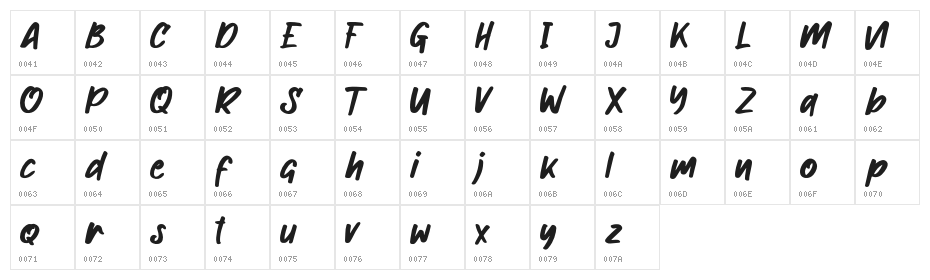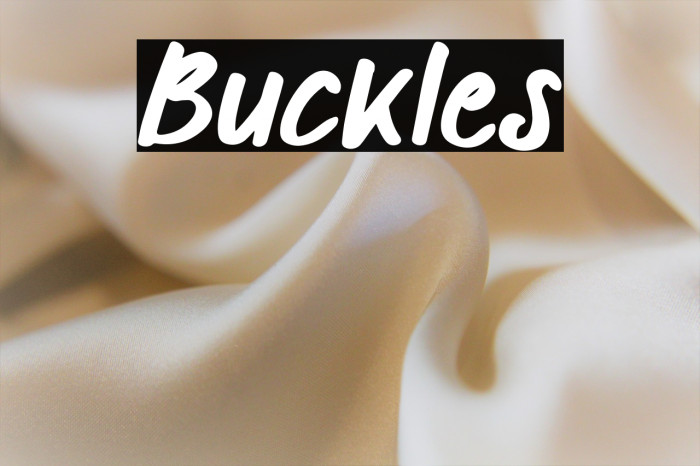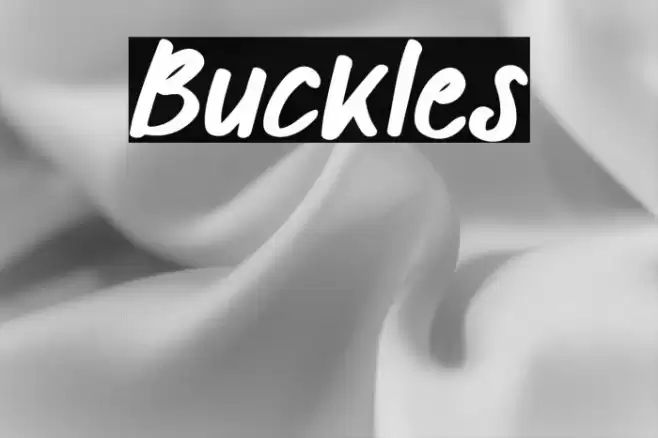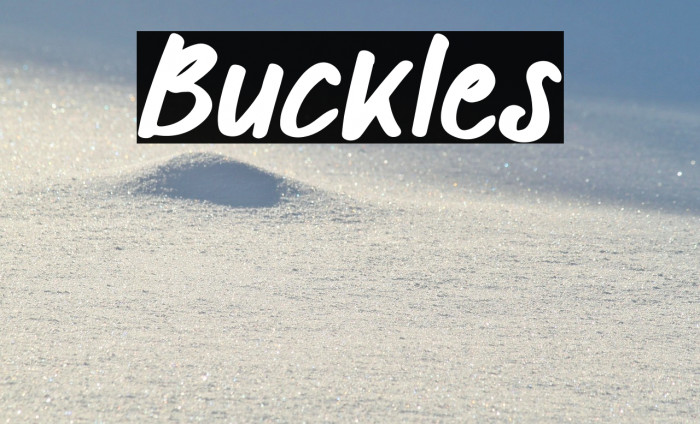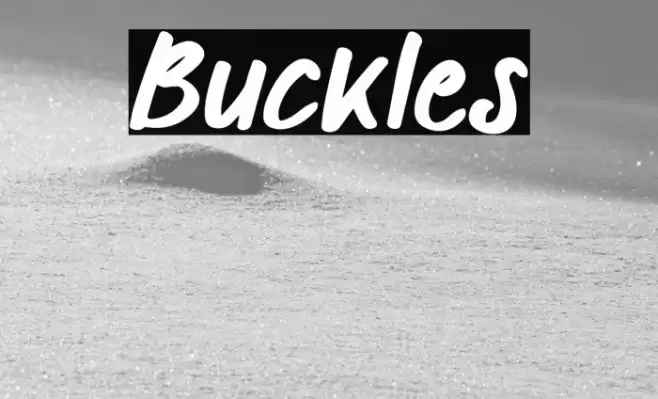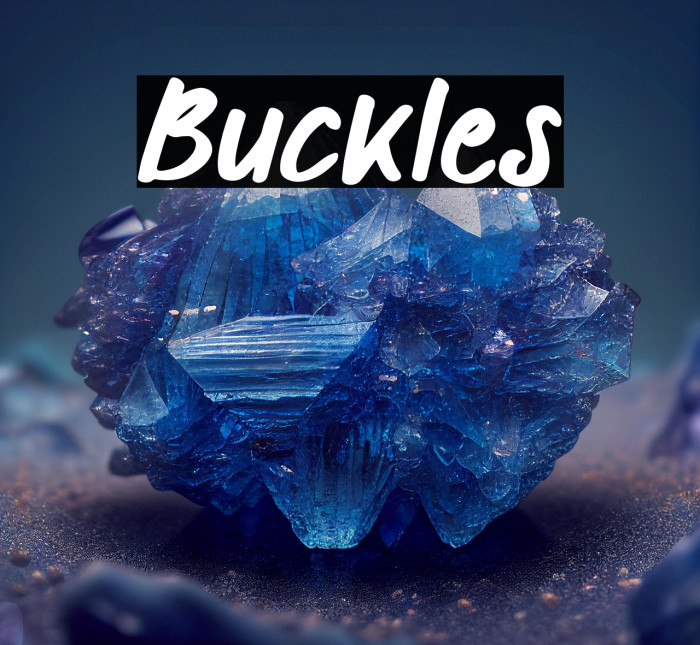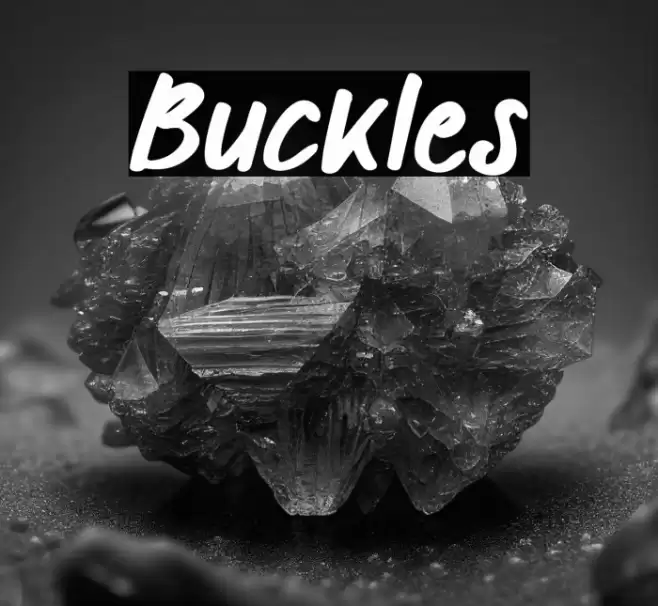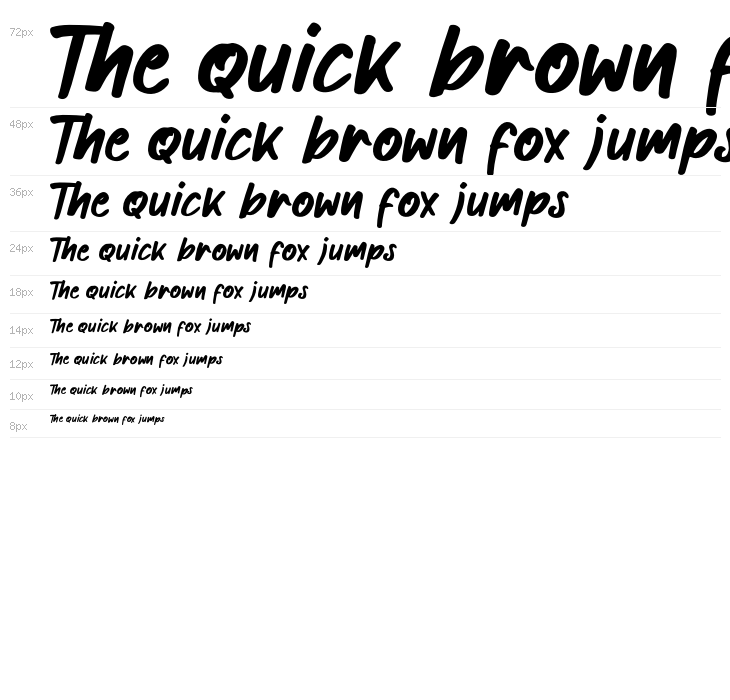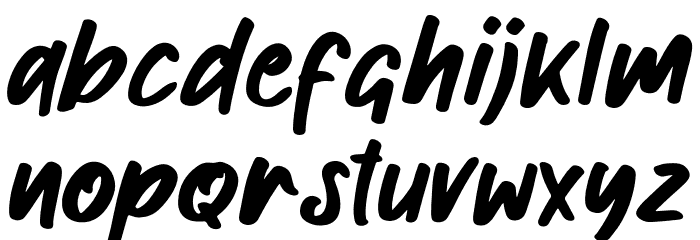
Buckles Font
Buckles Description
This font features a bold and expressive handwritten style, characterized by its thick, flowing strokes and slightly slanted letters. The uppercase and lowercase letters maintain a consistent style, with rounded edges and a playful, energetic feel. The font's design is both casual and dynamic, making it suitable for projects that require a personal touch. The characters are well-spaced, ensuring readability while retaining a lively appearance. This font is ideal for creative projects that aim to convey a sense of fun and approachability.
| Proposed Projects | Ideal for greeting cards, posters, branding, and social media graphics. |